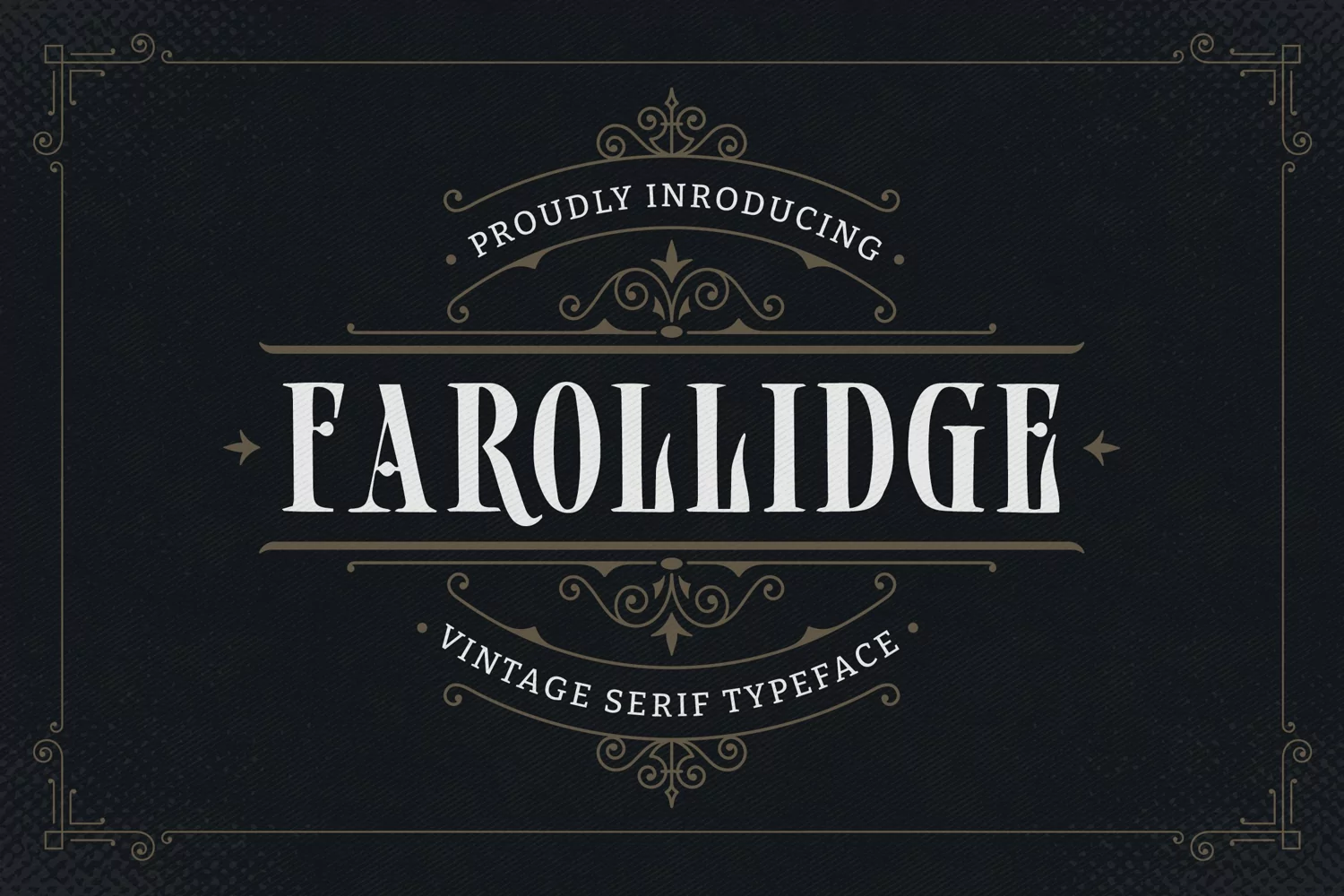
Created By Typefactory
Farollidge - Vintage Serif Typeface
If you’re looking for a retro and unique font (One which will bring all sorts of happiness to any project) the Farollidge font is just for you.
It combines a sense of classic, cuteness, elegance and vintage which makes it distinctive enough to give any project life and energy.